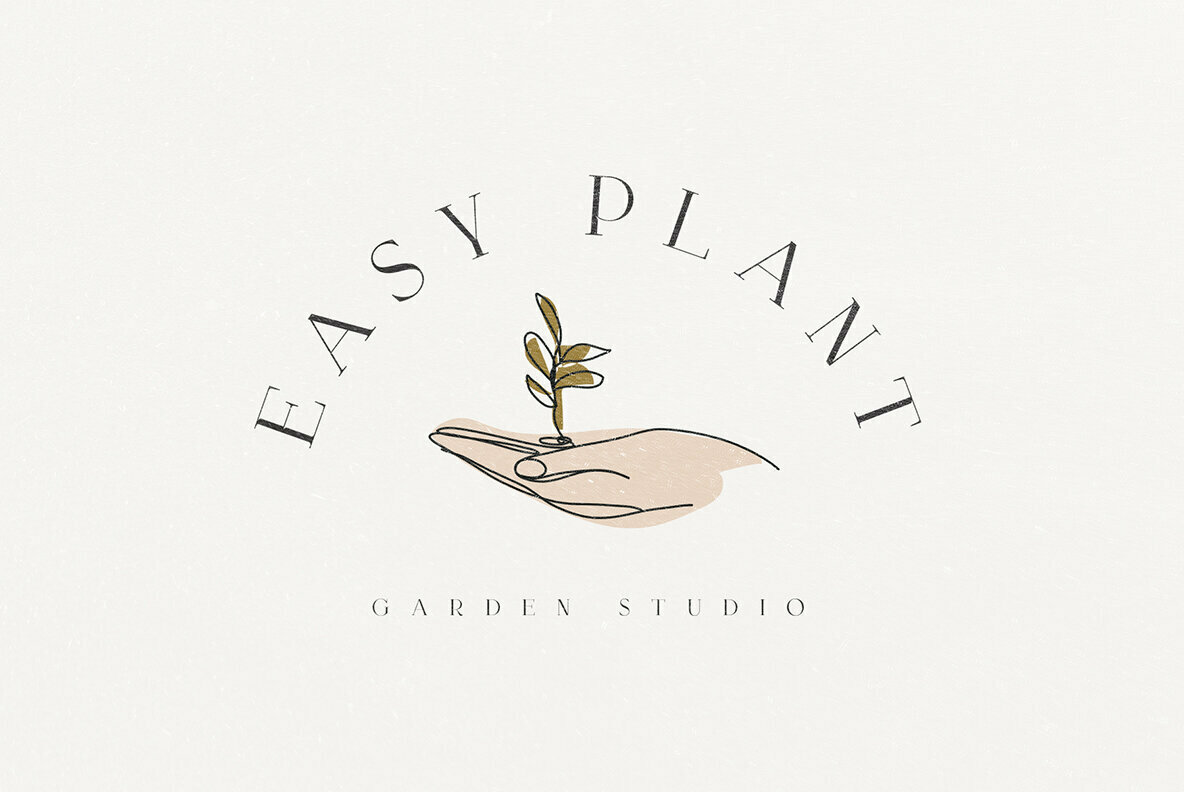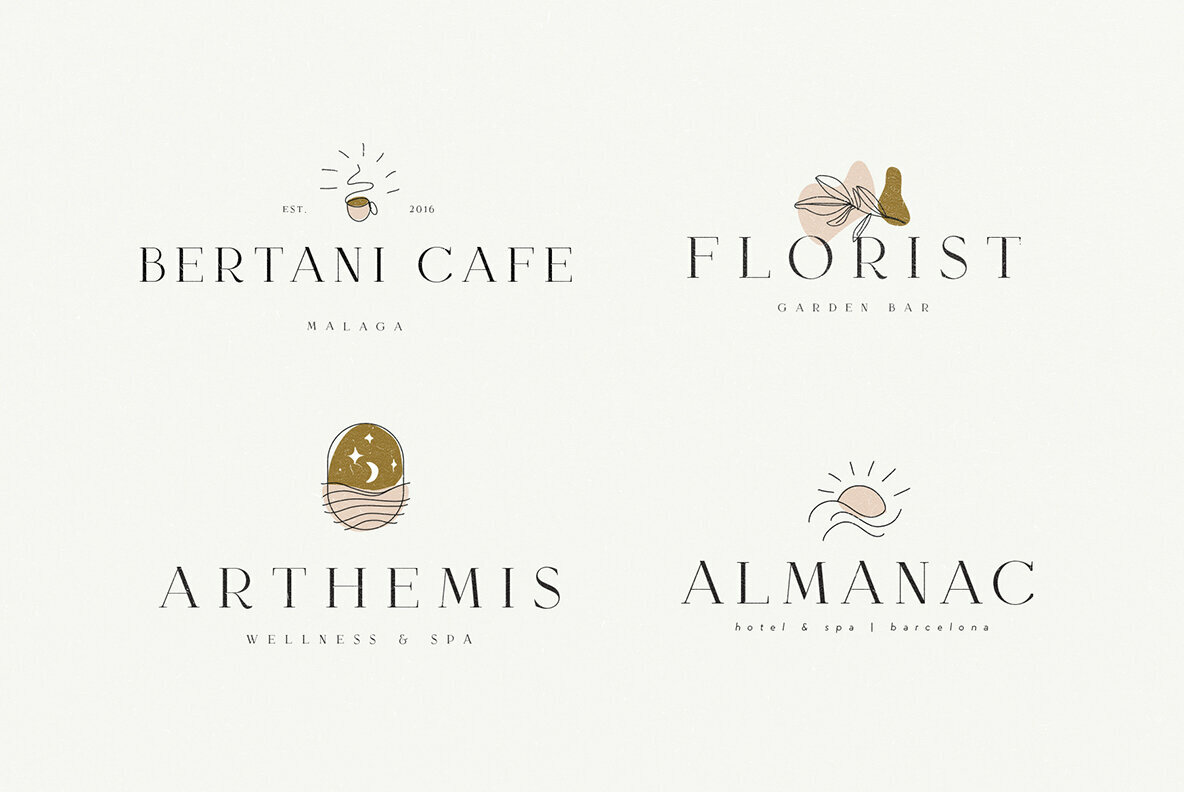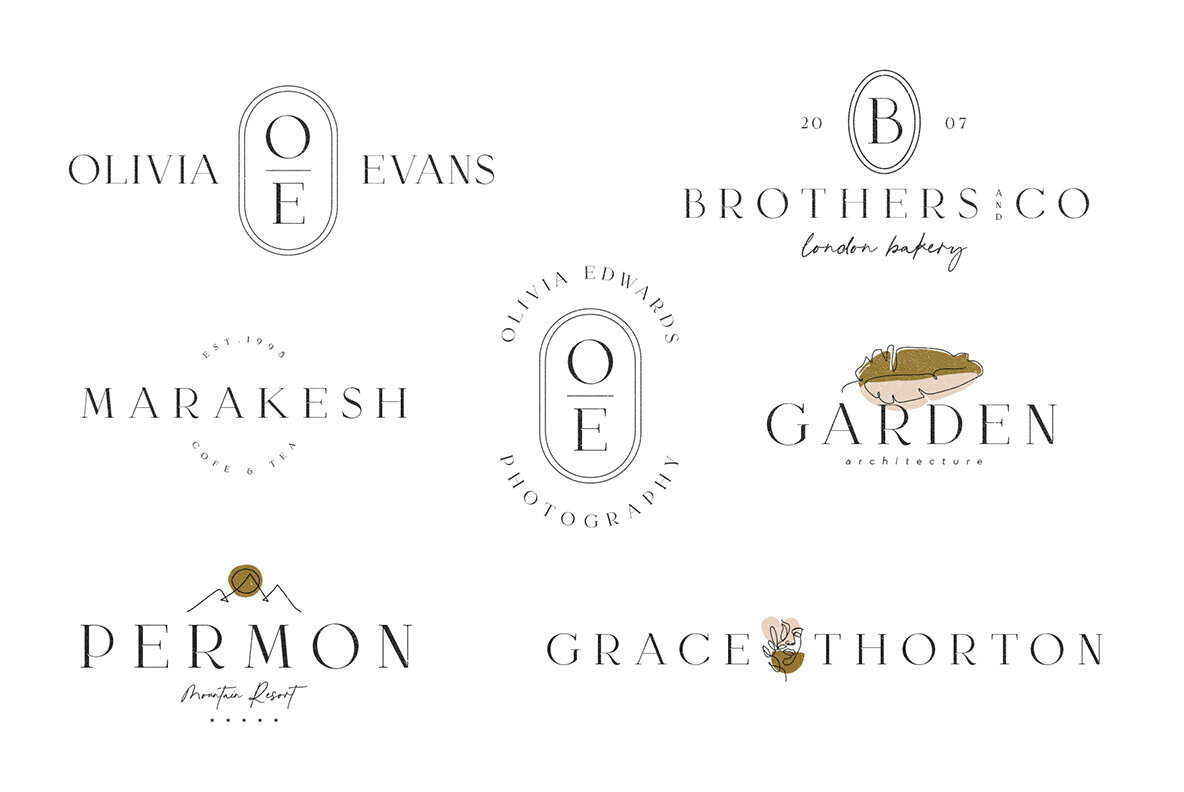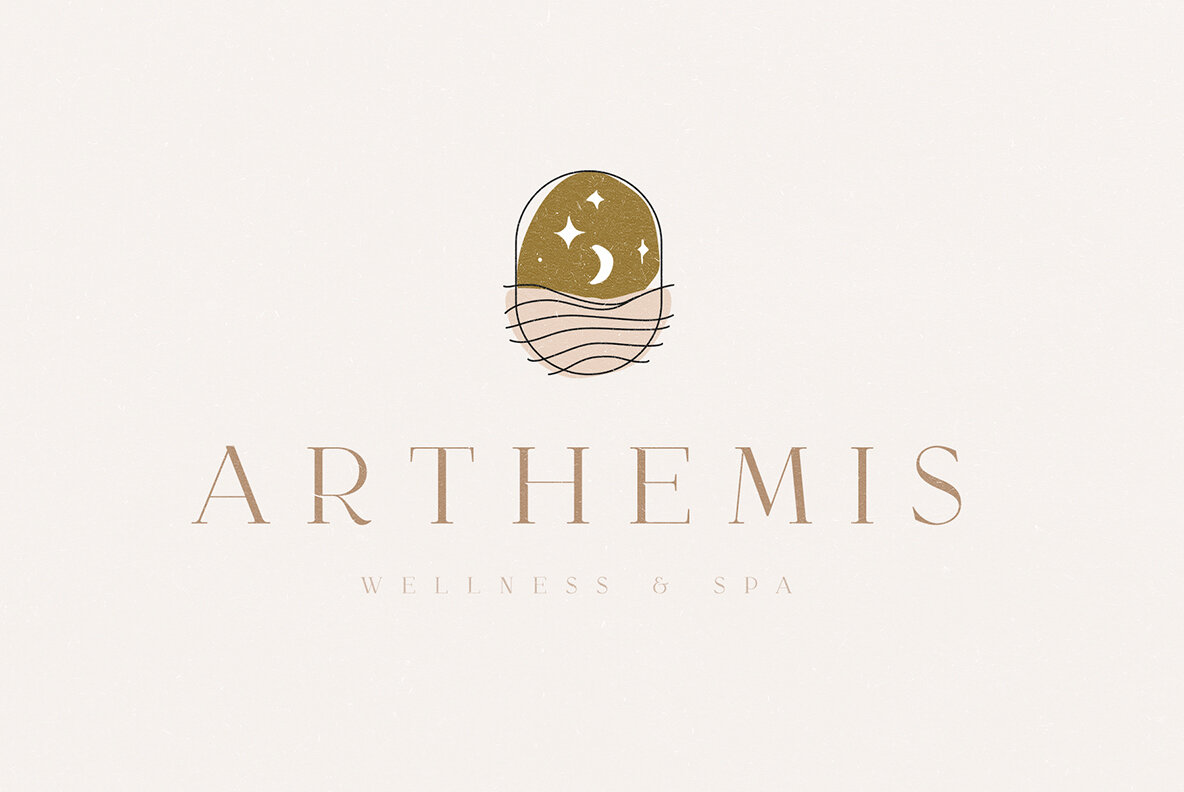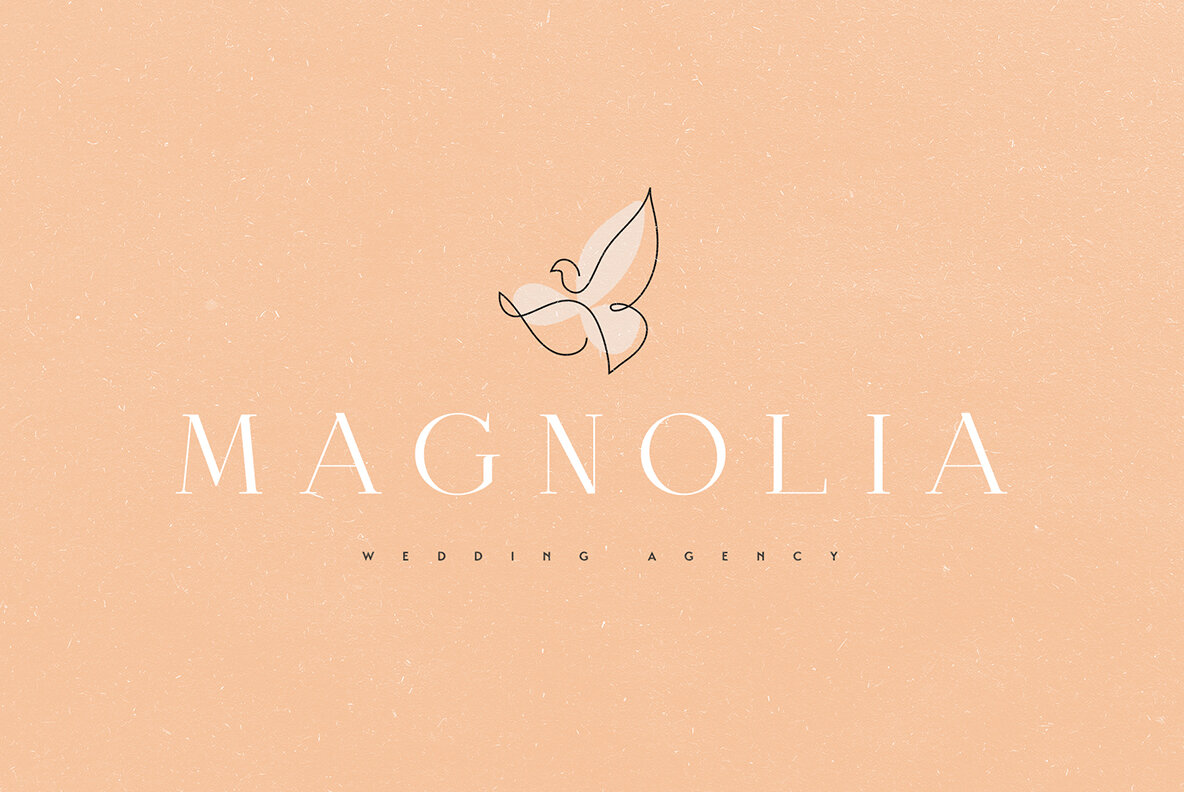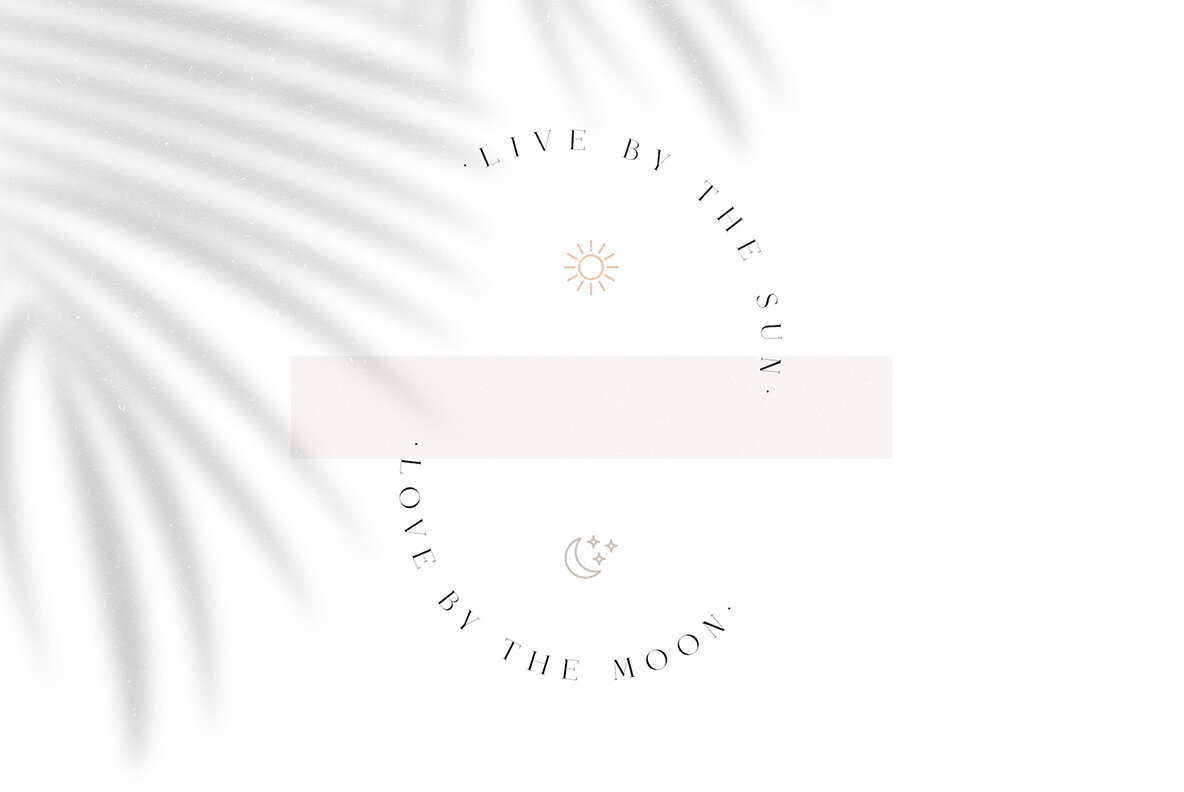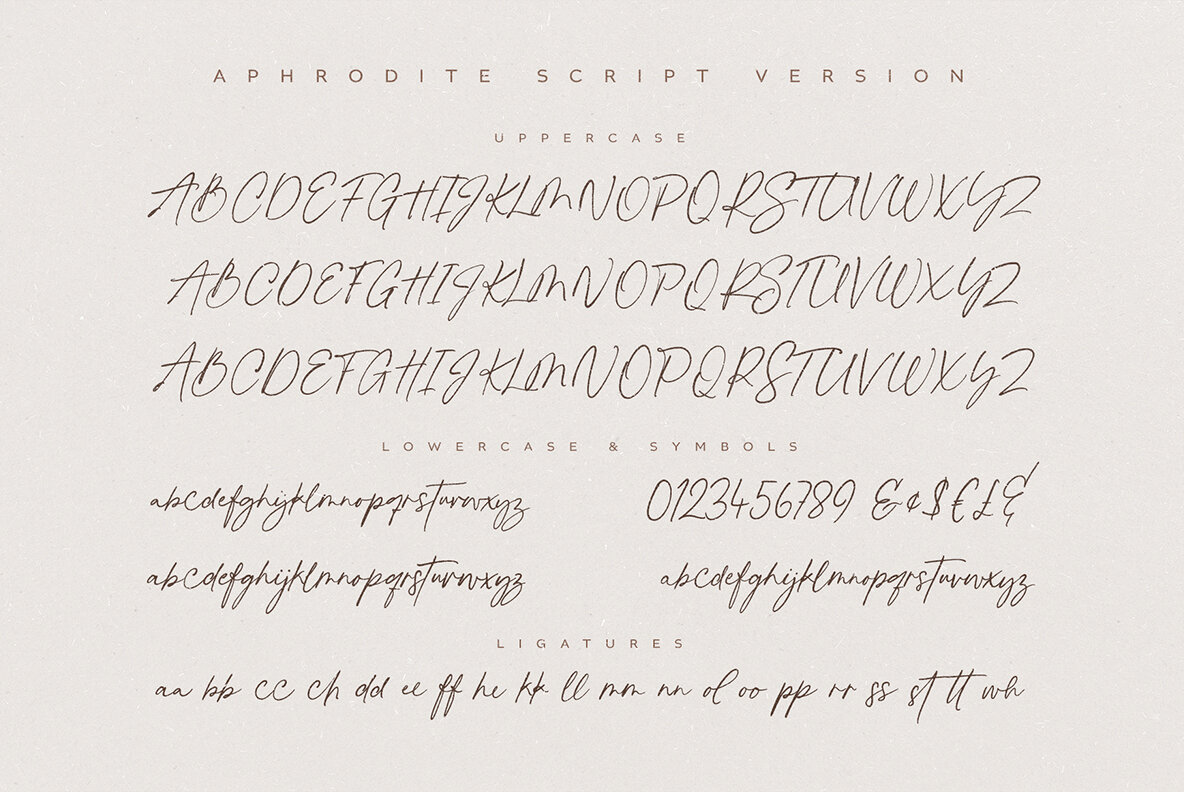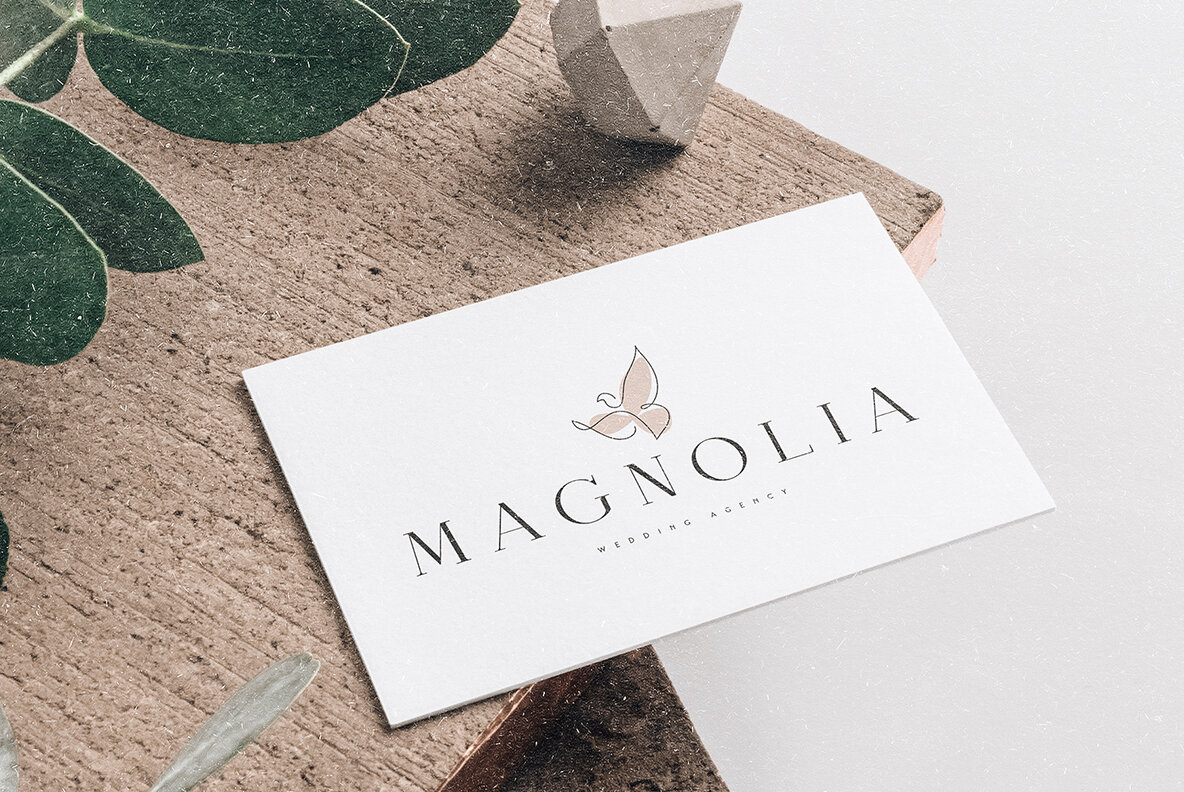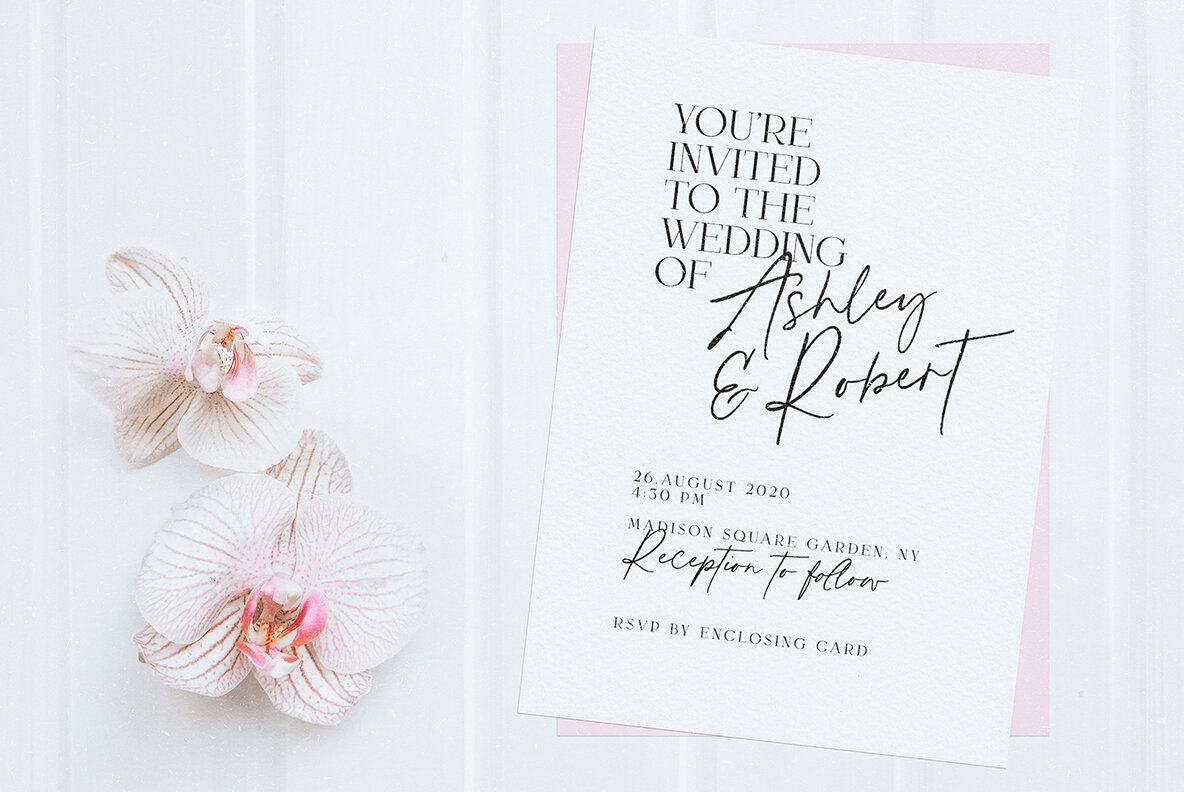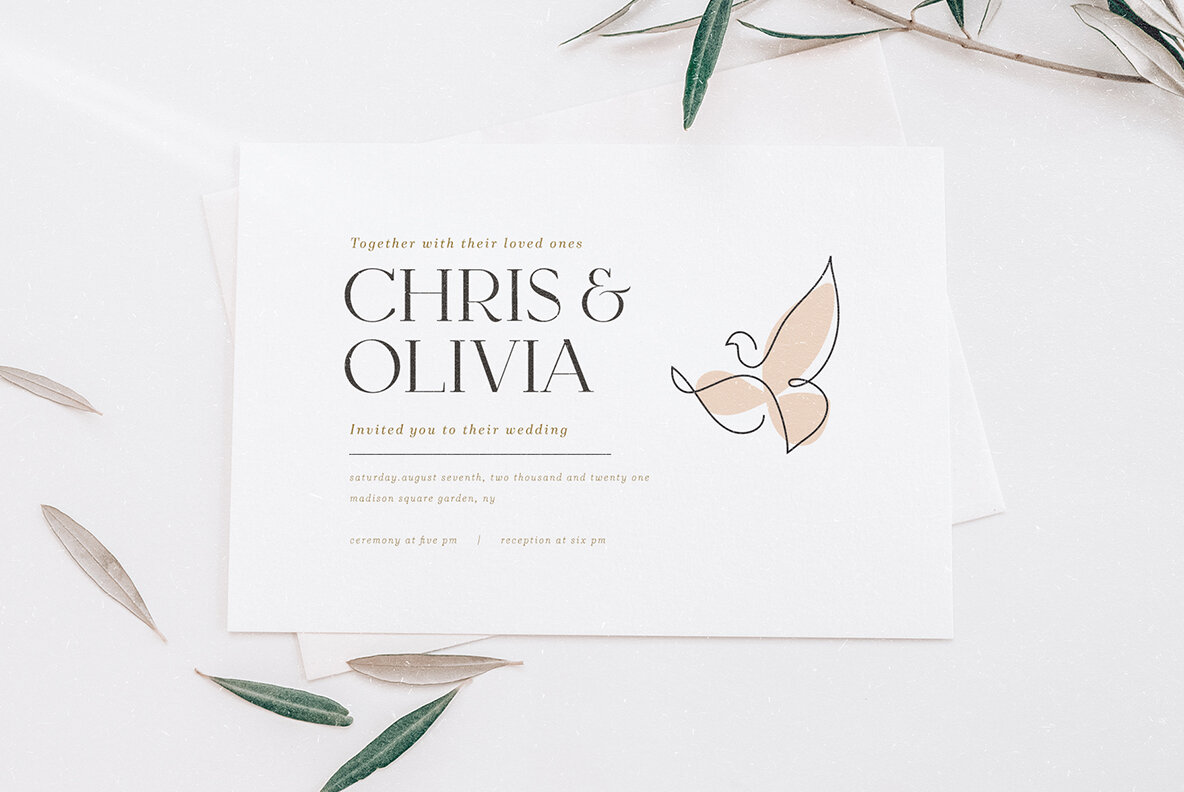
Aphrodite Font Duo
Aphrodite Font Duo is a modern serif font with hand-lettered script pair. These are ideal for fashion, blog website, instagram, branding, invitations, business cards, weddings and many more. Script version also includes 2 sets of alternate characters for both UPPERCASE AND LOWERCASE letters and ligatures for more natural look.
Complete Family:
- Aphrodite Script
- Aphrodite Serif